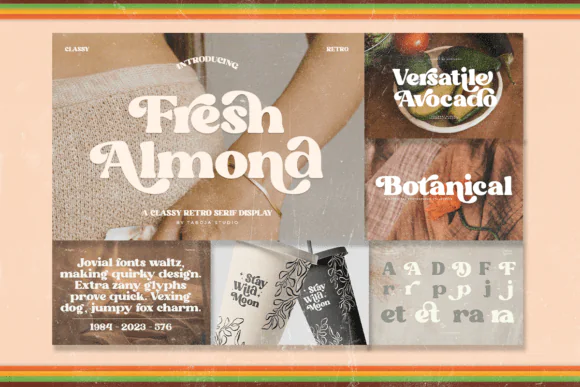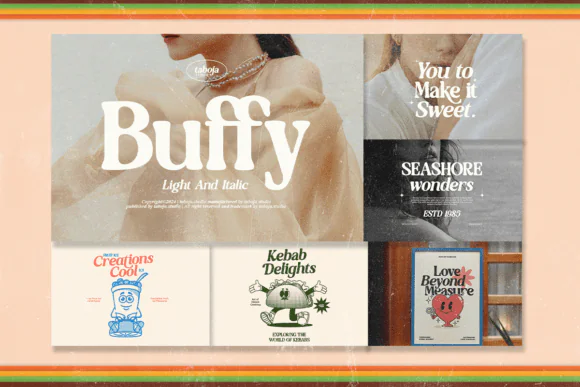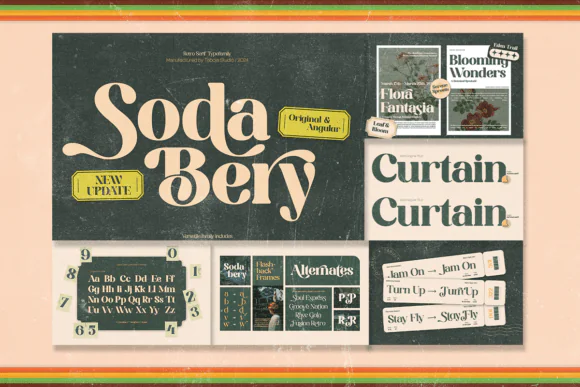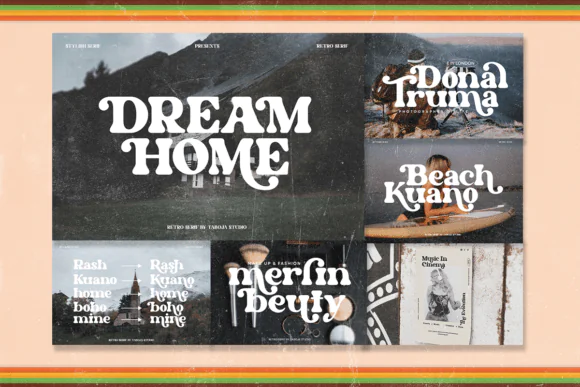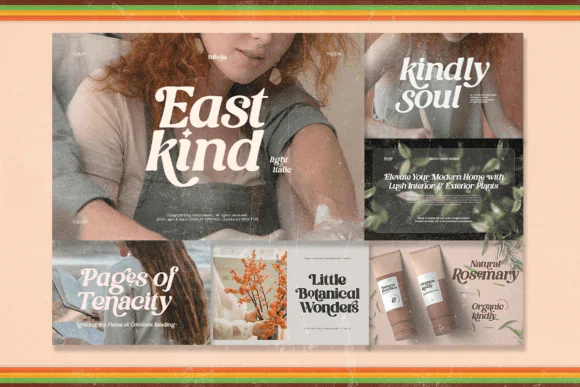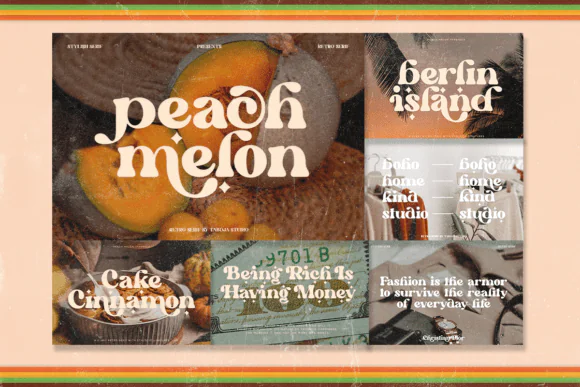
Retro Groovy Font Bundle | 7 Funky 60s 70s Display Fonts for Logos, Branding, Posters, T-Shirts, Stickers, Canva, Cricut & Vintage Designs
Create bold, playful, and nostalgic designs with this Retro Groovy Font Bundle, a stylish collection of funky display fonts inspired by the colorful spirit of the 60s and 70s. This bundle is perfect for designers, crafters, small business owners, print-on-demand sellers, and creative makers who want to add a groovy vintage feel to their projects.
The bundle includes 7 high-quality retro display fonts, each designed with its own unique personality, handcrafted curves, and fun lettering style. These fonts are ideal for creating eye-catching logos, brand identities, packaging, posters, social media graphics, album covers, product labels, invitations, stickers, apparel designs, and more.
Fonts Included:
• Fresh Almond
• Peach Melon
• Dream Home
• Buffy
• Sodabery
• East Kind
Design Style:
Funky, groovy, retro, vintage, bold, playful, colorful, nostalgic, handmade, and expressive.
This Retro Groovy Font Bundle gives your creative projects a warm vintage character while keeping them bold, readable, and full of personality. It is a great choice for anyone creating cheerful, retro-inspired designs that stand out.